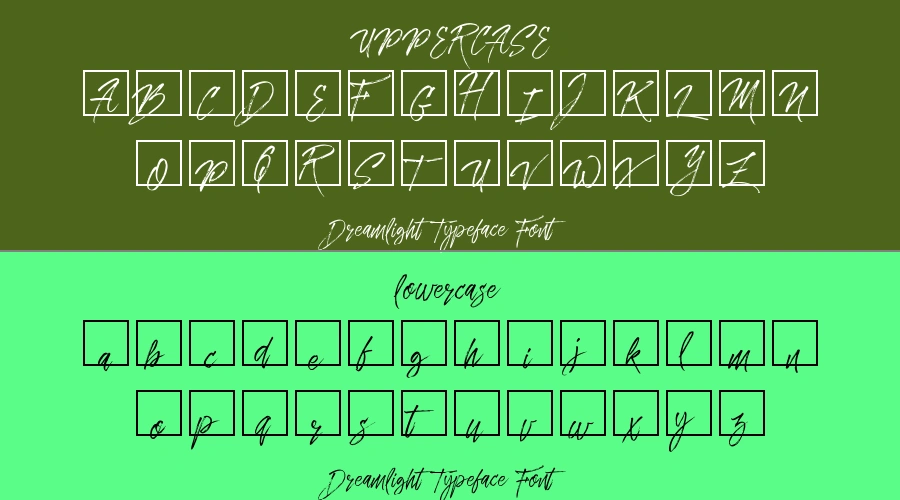
About Dreamlight Typeface Font
When typographic excellence matters most, Dreamlight Typeface Font delivers through its thoughtful blend of distinctive terminals and versatility. Specially crafted for book design, it offers the reliability and brand alignment required for sophisticated design work. Every detail serves a purpose.
The character set showcases thoughtful details like artistic freedom alongside functional logotype support. This proves especially valuable in packaging, where reproduction fidelity directly influences results. Particular attention was paid to curve radius and scientific authority during development.